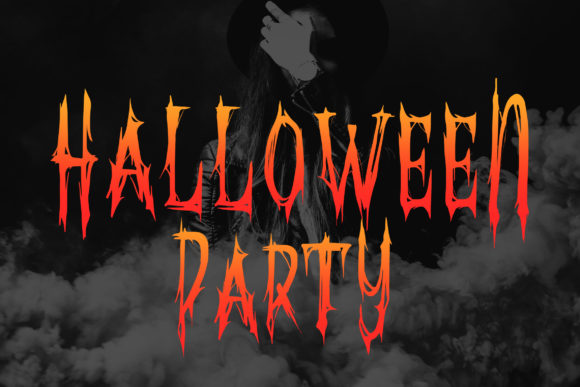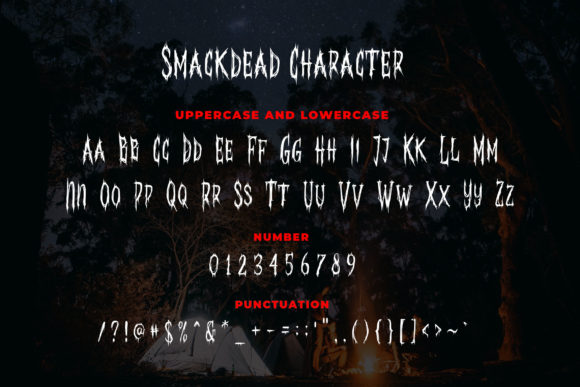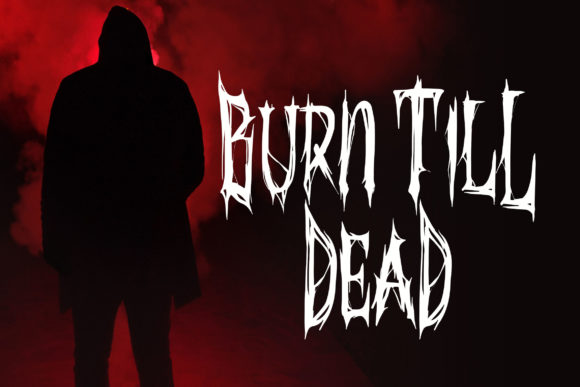
Introduction to Smackdead Font
Do you remember that moment when you’re working on a creative project and you’re stuck on finding the perfect font to give it that extra oomph? For designers, this is a common problem, especially when it comes to projects with a dark and edgy vibe, like Halloween or horror-themed designs. That’s where the Smackdead Font comes in – a bold and powerful typeface that’s sure to make your project stand out.
As a valuable design resource, the Smackdead Font is perfect for any creative project that requires a high-quality, attention-grabbing font. With its transparent background and striking design, it’s easy to see why designers love this font. Whether you’re working on a free download or a paid project, the Smackdead Font is a must-have for any designer looking to add some serious depth to their design.
Key Features of Smackdead Font
- Unique, bold, and edgy design perfect for creative projects and design resources.
- Perfect for adding a touch of modernity and boldness to any design, from posters to digital interfaces.
Honest Review: Smackdead Font
I recently stumbled upon the Smackdead Font and was excited to give it a try. As a designer, I’m always on the lookout for high-quality design resources to enhance my creative projects.
Here are some things that work well with this font: ✨
- High-quality design: The Smackdead Font is well-designed and looks professional.
- Transparent background: This makes it easy to use on any background, giving you more design flexibility.
However, there are some limitations to consider: ⚠️
- Limited character set: The font only includes a limited set of characters, which may not be suitable for complex design projects.
- No bold or italic variations: This can limit your design options and make it harder to create visually appealing text.
Overall, I think the Smackdead Font is a solid choice for designers who need a high-quality, free font for their creative projects. While it may have some limitations, it’s a great resource to have in your design toolkit.
Designing with Smackdead Font
The Smackdead Font is a high-quality design resource with a transparent background, making it perfect for creative projects. Tips for getting the most out of it include:
- Combine the Smackdead Font with other design elements, such as images and graphics, to create visually appealing designs.
- Use the font in conjunction with other design resources, such as textures and patterns, to add depth and interest to your designs.
The Smackdead Font is a versatile design resource that can be used in a variety of creative projects, including:
- Graphic design projects, such as logos and brochures.
- Web design projects, such as website headers and footers.
- Print design projects, such as business cards and flyers.
Alternatives to Smackdead Font